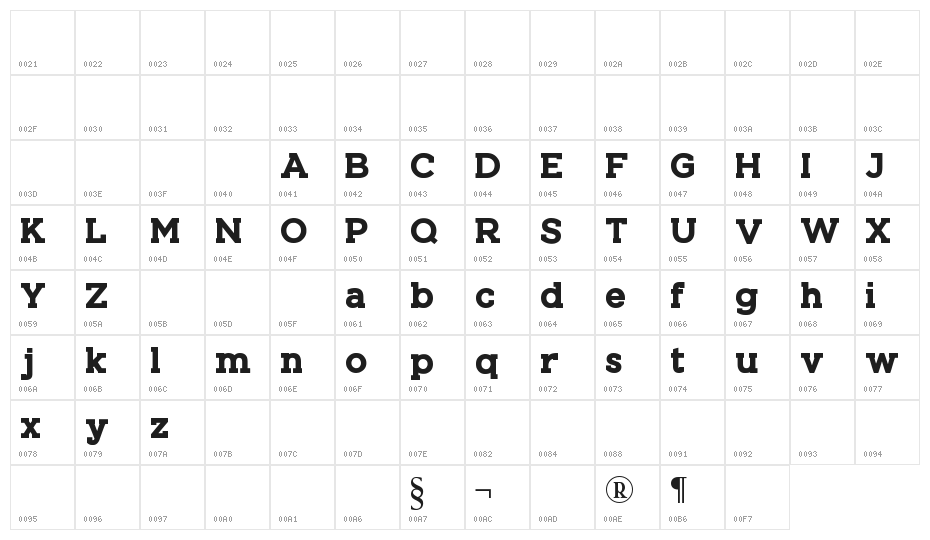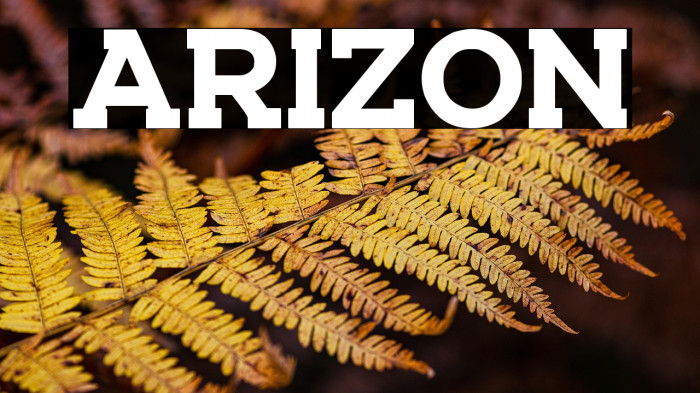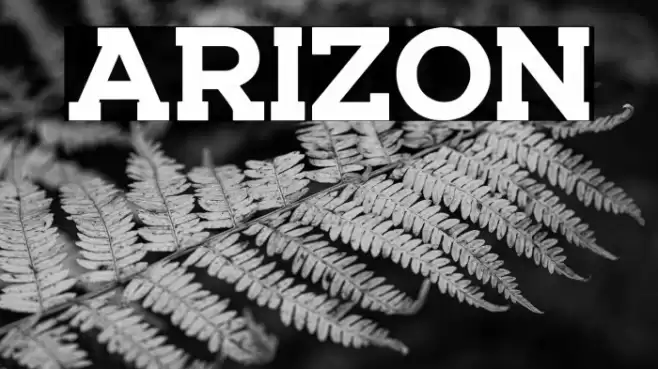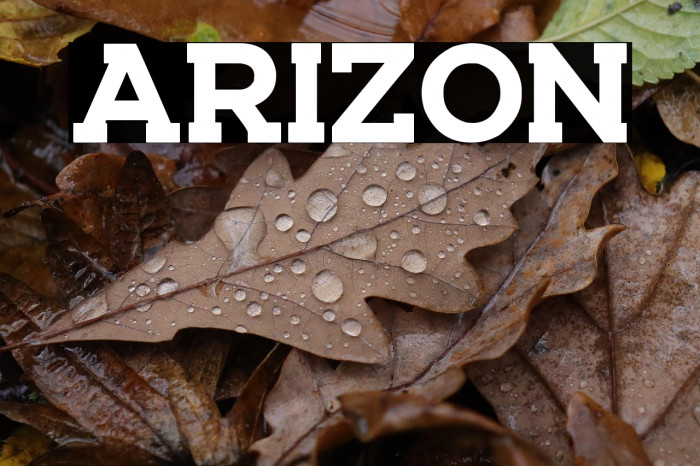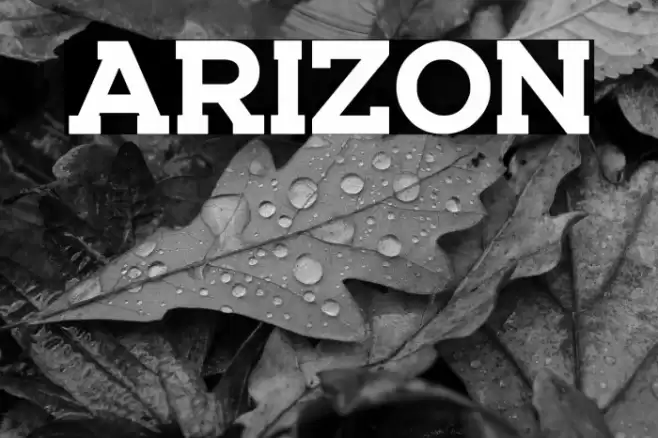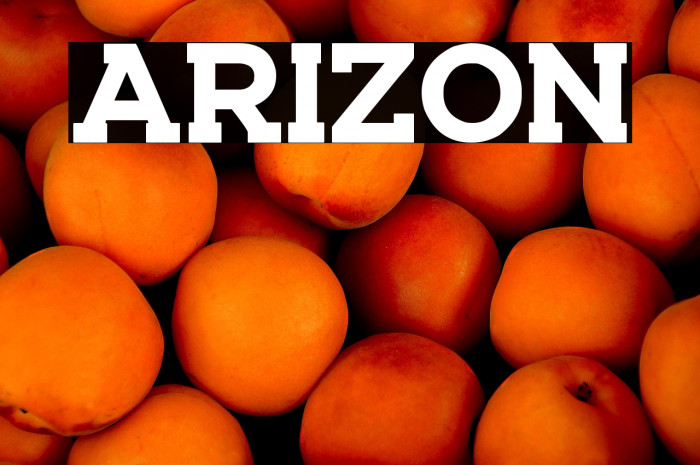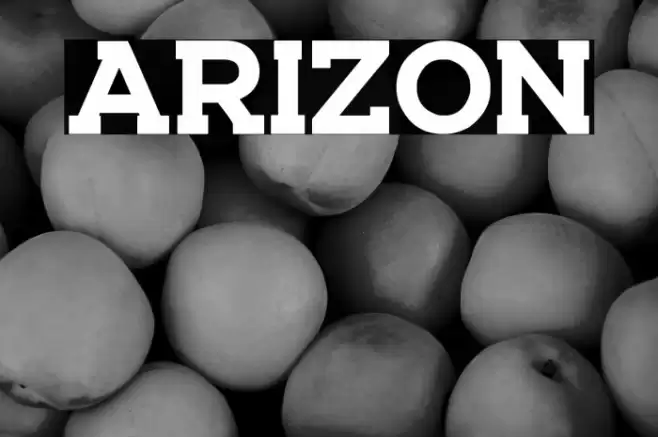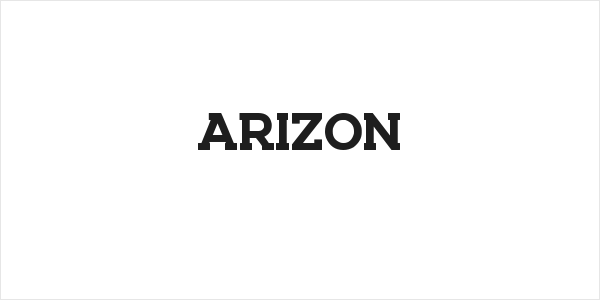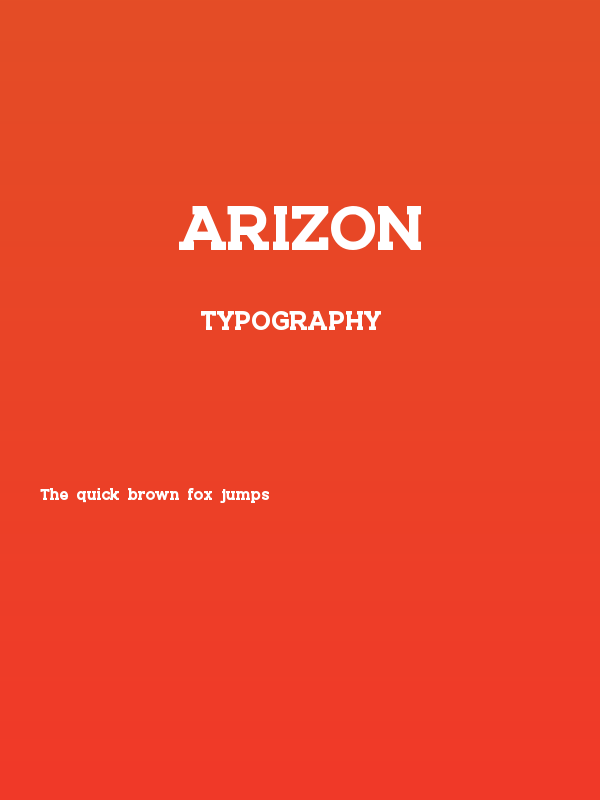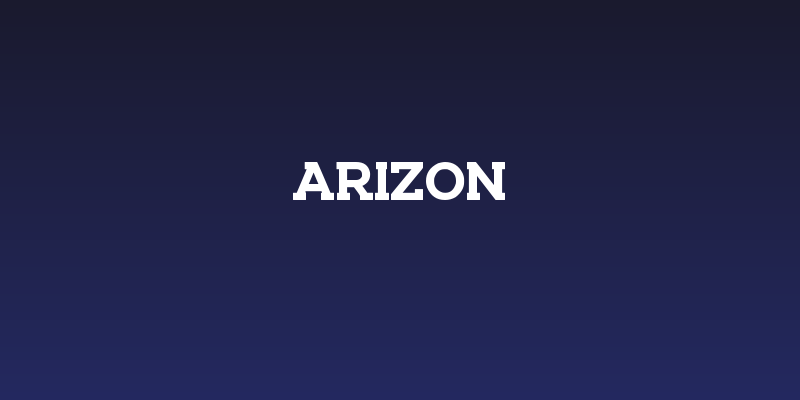
ARIZON Font
ARIZON Description
This font features a bold and robust slab serif style, characterized by thick, block-like serifs that give it a strong and authoritative presence. The uppercase letters are uniform in height, providing a sense of stability and balance, while the lowercase letters maintain a consistent x-height, ensuring readability. The overall design is clean and modern, with a slight vintage touch due to the slab serifs. The font's bold weight and strong contrast between thick and thin strokes make it highly legible, even at smaller sizes. It is well-suited for headlines and titles, where it can command attention and convey a sense of importance.
| Proposed Projects | This font is perfect for branding projects, poster designs, magazine covers, and any application where a bold, impactful statement is needed. |